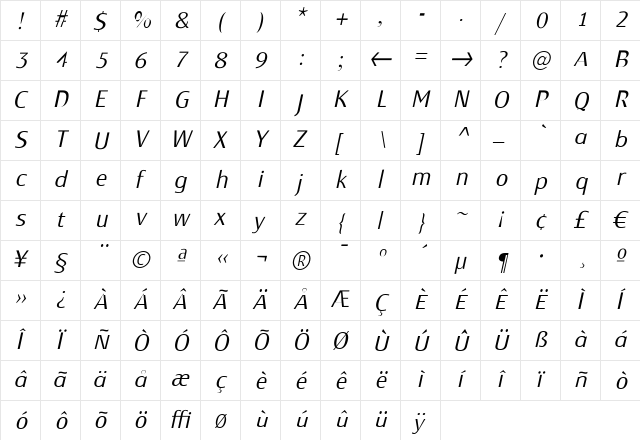
Monem ExtraLight Italic
Design Context for Monem ExtraLight Typeface
Monem ExtraLight offers clean, dependable letterforms without strong stylistic allegiance, making it a practical choice for designers who need flexibility. Its italic angle brings a sense of urgency and motion to the letterforms. Its slender proportions lend an understated elegance to any composition.
Pro Tip: Try Monem ExtraLight for annotation and caption copy alongside an upright companion — the contrast in angle creates a dynamic but ordered typographic system.